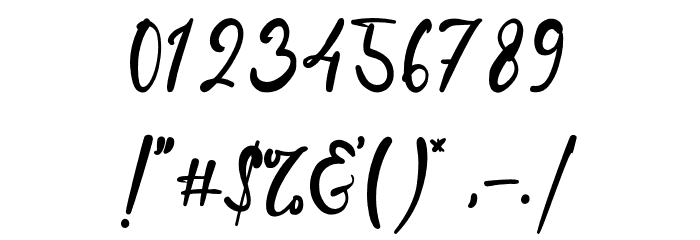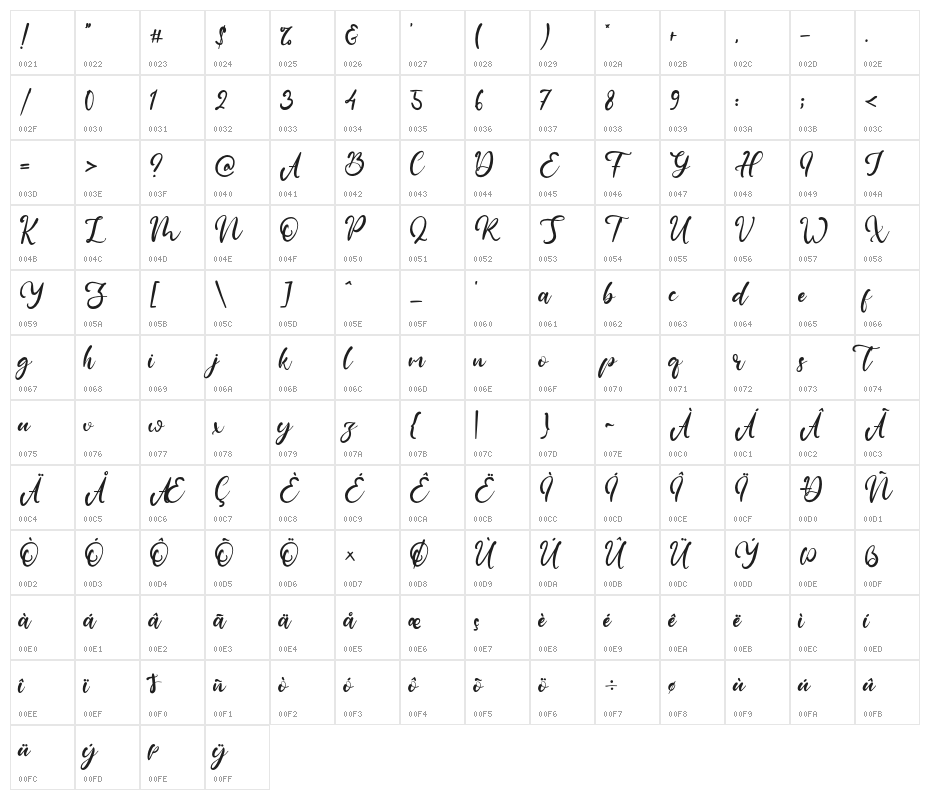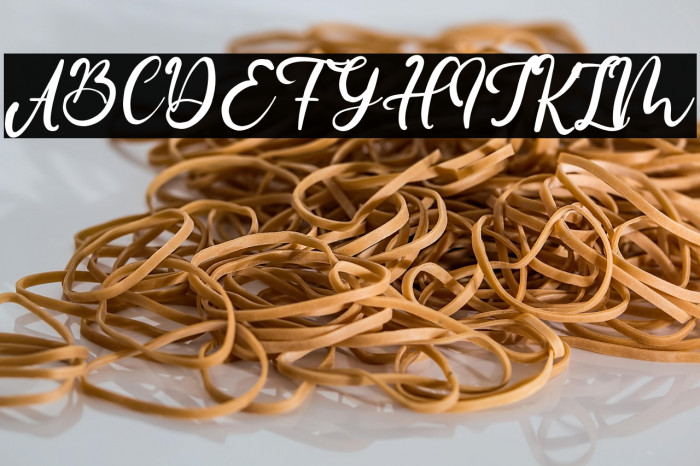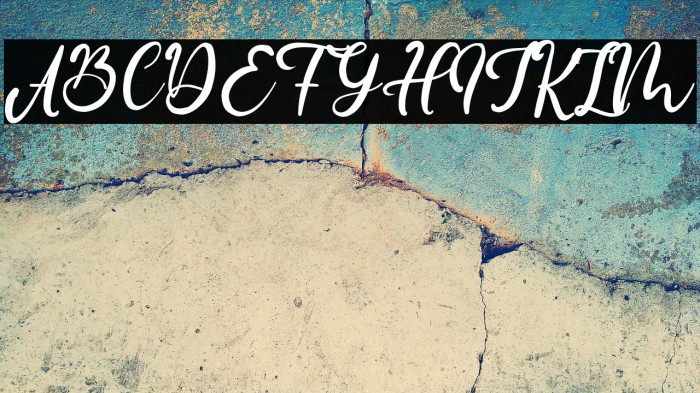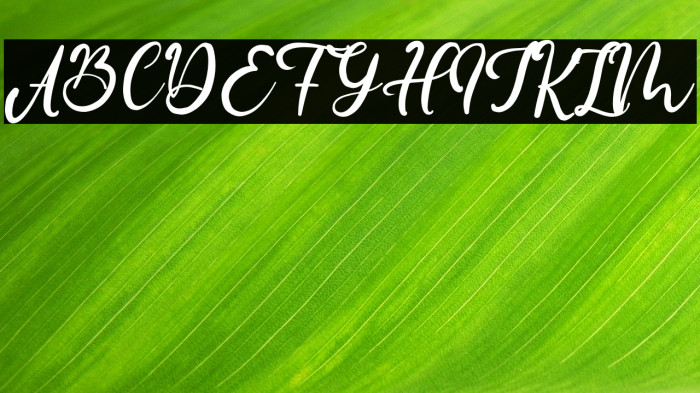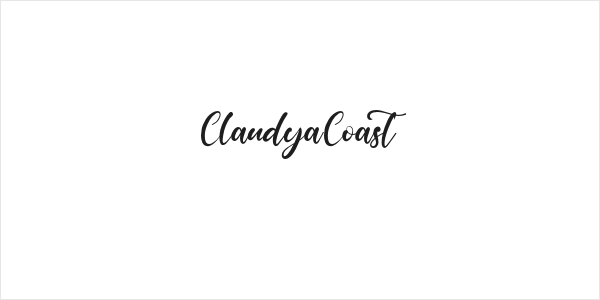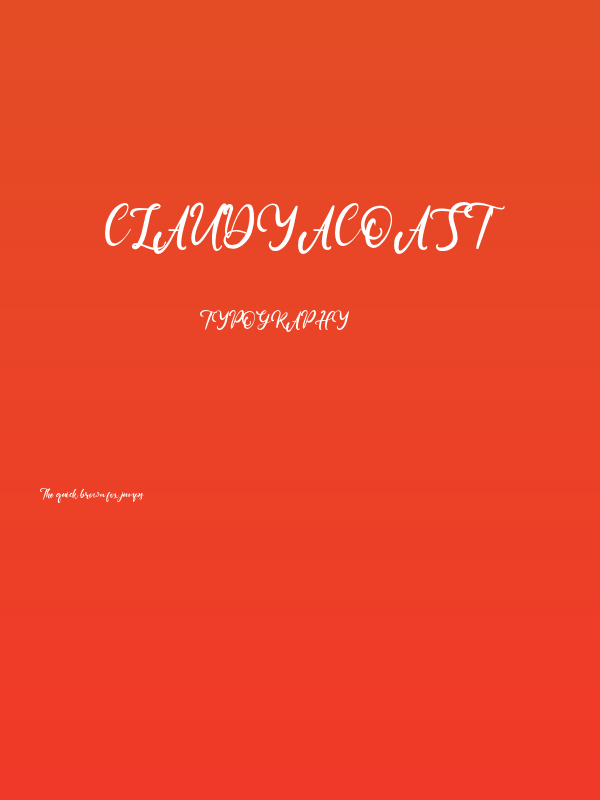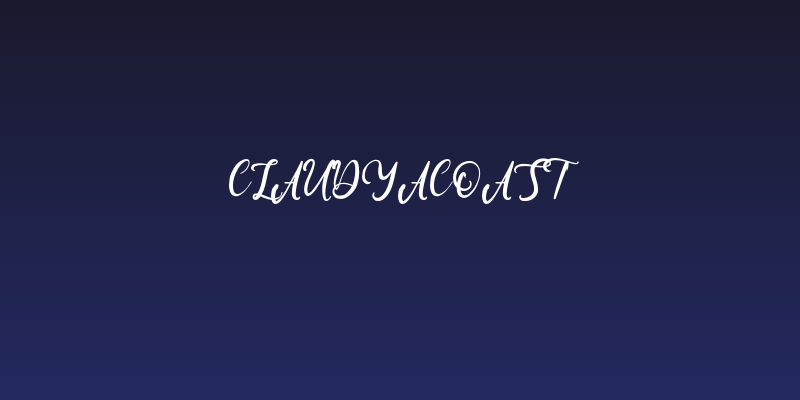
ClaudyaCoast Font
This elegant script font features a flowing, cursive style with smooth, connected strokes that give it a graceful and sophisticated appearance. The uppercase letters are ornate and slightly larger than the lowercase, which are more compact and rounded. The numerals maintain the same fluidity, ensuring consistency throughout the typeface. Special characters are designed with the same attention to detail, making them blend seamlessly with the rest of the font. The overall design is both decorative and legible, suitable for a variety of creative applications.
A graceful script font with flowing, connected strokes and elegant curves.
- Font: ClaudyaCoast
- Proposed Projects: Ideal for wedding invitations, greeting cards, branding, and elegant packaging design.
- Category: Script
- Overall Style: Elegant
- Use Case: Logos, Invitations, Decorative text